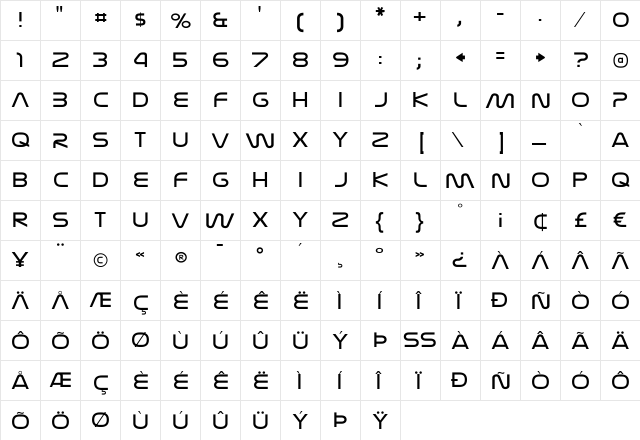
Nasalization Extended Light Regular
Design Context for Nasalization Extended Light Typeface
Nasalization Extended Light is a composed and adaptable typeface that performs quietly and consistently across a wide range of design contexts. The delicate stroke weight brings airiness and refinement to layouts.